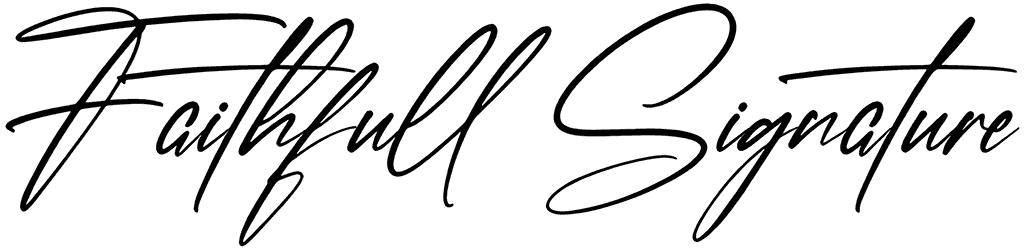
Faithfull Signature Font
Sometimes an autograph font like Faithfull Signature does such a fine job of boosting your design that you won’t need anything else. You can always rely on its cursive characters to make an excellent impression on your audience and get them hooked.
Feel free to apply this signature font to your clothes labels, mugs, greeting cards, or tattoos, and let your typography look so nice and realistic that you can’t get enough of looking at it.